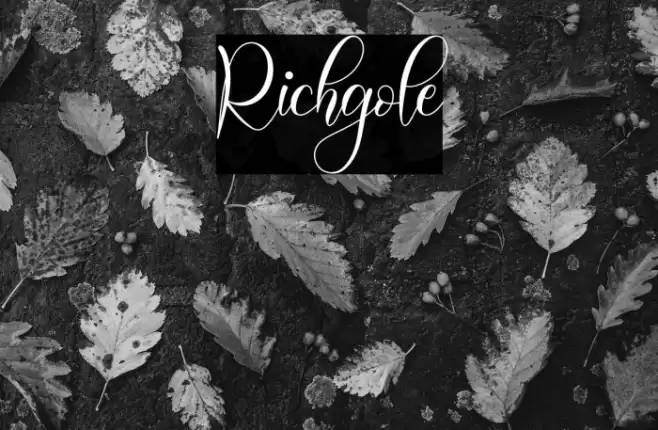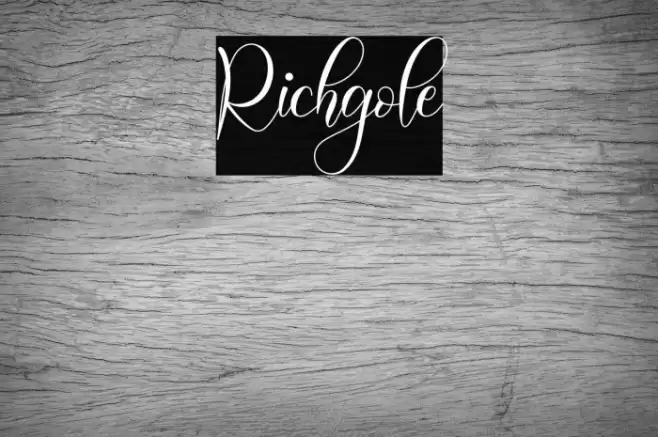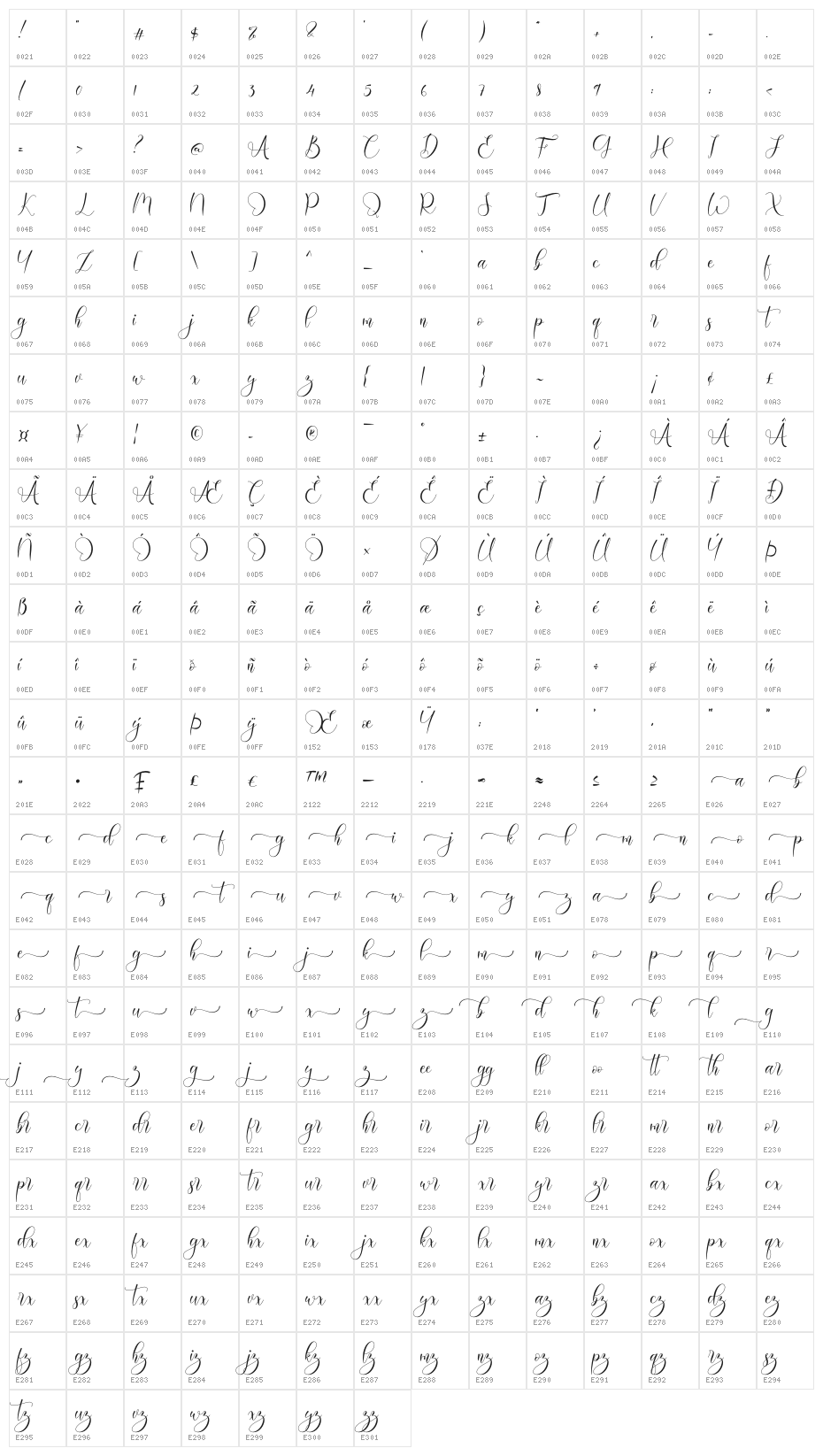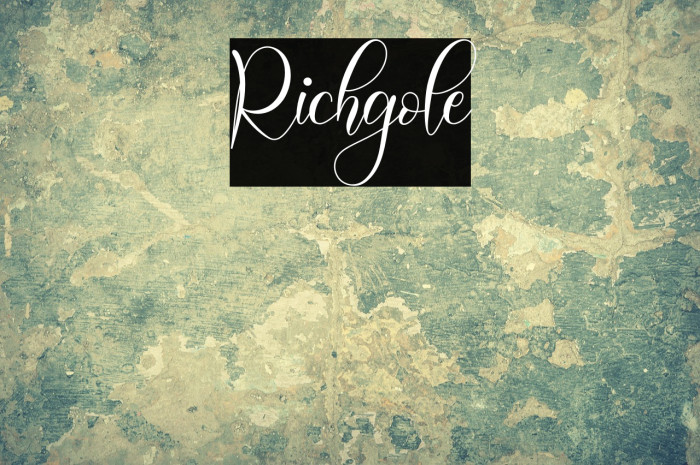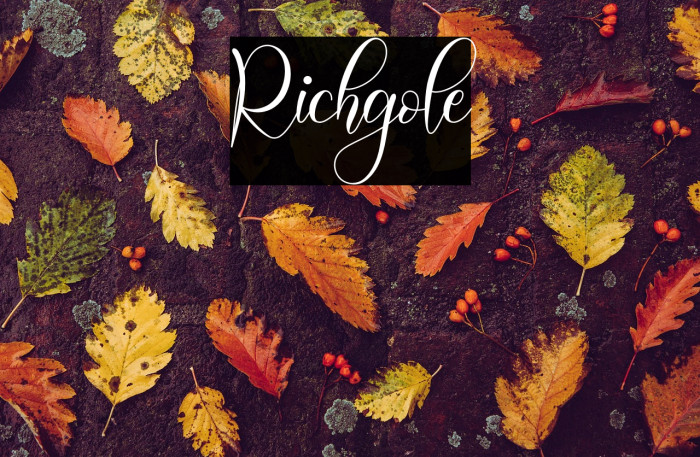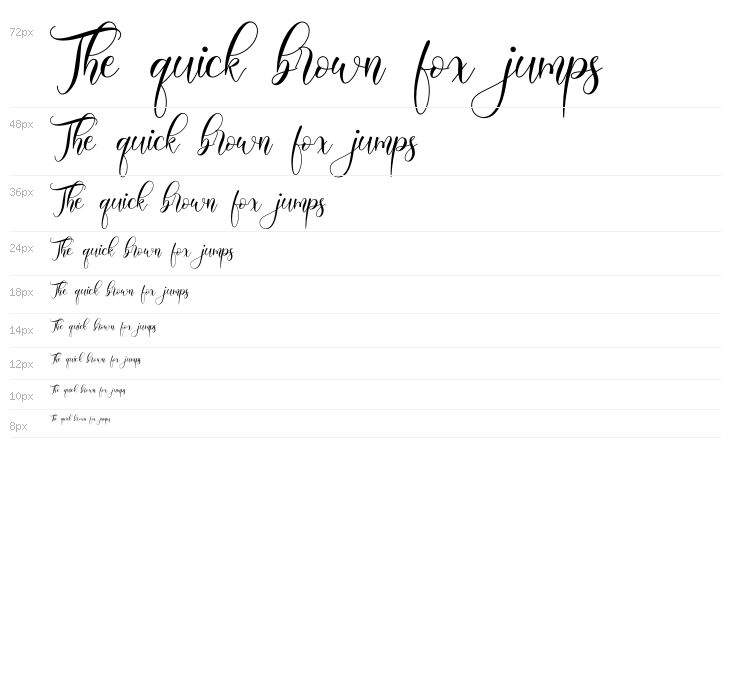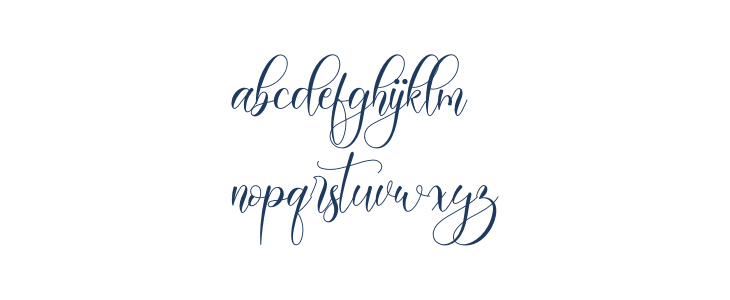
Richgole Font
Richgole Description
This elegant script font features flowing, interconnected characters with a graceful and sophisticated appearance. The uppercase letters are characterized by their sweeping curves and loops, giving them a sense of movement and fluidity. The lowercase letters maintain the same fluid style, with some characters extending below the baseline, adding to the font's dynamic look. The numerals are consistent with the overall style, maintaining the same elegant curves. Special characters are designed with the same attention to detail, ensuring a cohesive look across all glyphs. This font is perfect for projects that require a touch of elegance and sophistication.
An elegant script font with flowing, interconnected characters and graceful curves from Uncategorized fonts.
- Proposed Projects: Ideal for wedding invitations, elegant branding, luxury product packaging, and decorative headings.
- Overall Style: Elegant, Sophisticated
- Use Case: Logos, Invitations, Decorative Text